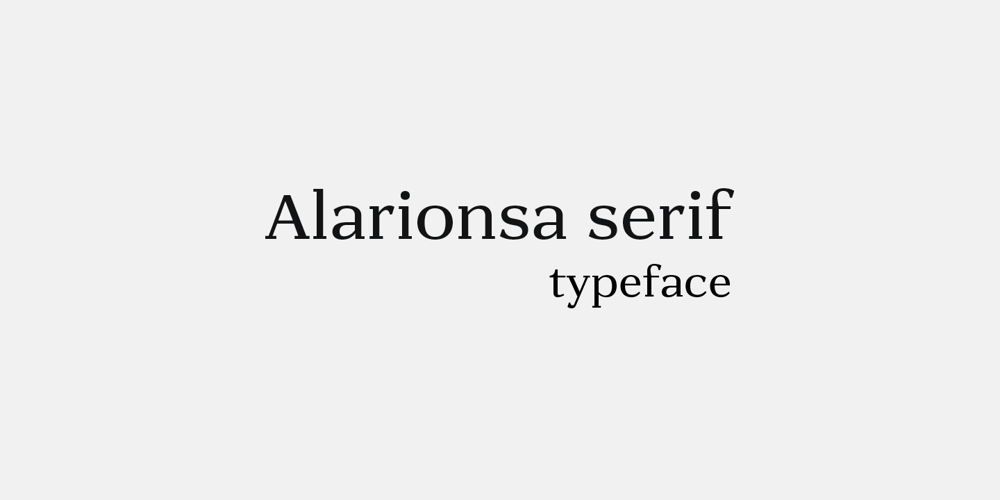
Alarionsa Serif Font Family was designed by Igor Kosinsky and published by Kosinsky. Alarionsa Serif contains 3 styles and family package options. Alarionsa – font with straight horizontal serifs, vertical serifs have a slight angle of inclination. Lowercase letters are designed with somewhat inflated x-height. Perfect for both creating headlines and regular text.